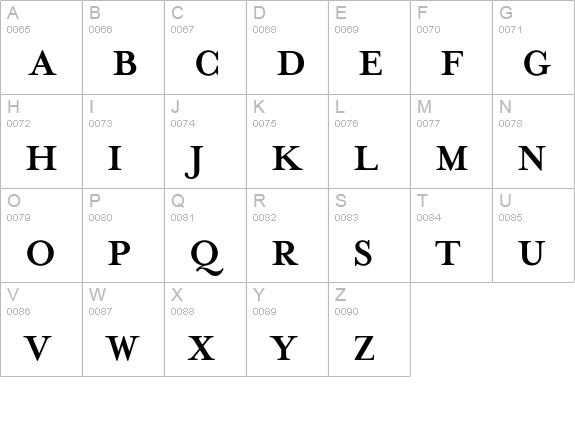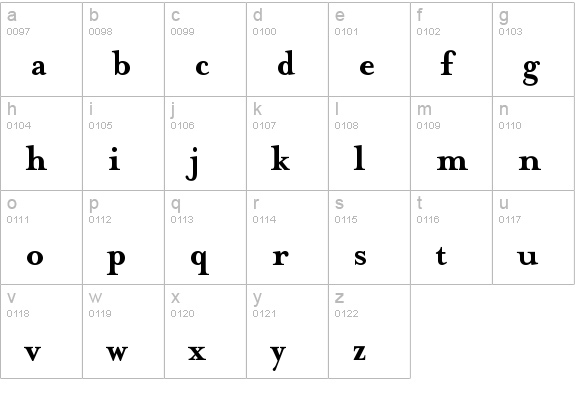
MrsEavesSmartLigBold Font Details
MrsEavesSmartLigBold is a striking and sophisticated font that exudes elegance and modernity. With its bold and sharp design, this typeface commands attention and makes a statement in any project. The sleek lines and smart ligatures of MrsEavesSmartLigBold lend a contemporary edge to any text, making it perfect for branding, advertising, and editorial design. What sets MrsEavesSmartLigBold apart is not just its sleek appearance, but also the fact that it is available for free download at FontsMarket.com. This means that designers, creatives, and typophiles alike have easy access to this standout font to elevate their projects without breaking the bank. Whether you're looking to add a touch of sophistication to your next design or make a bold statement, MrsEavesSmartLigBold is the perfect choice. Download it for free today at FontsMarket.com and see how this font can take your designs to the next level.